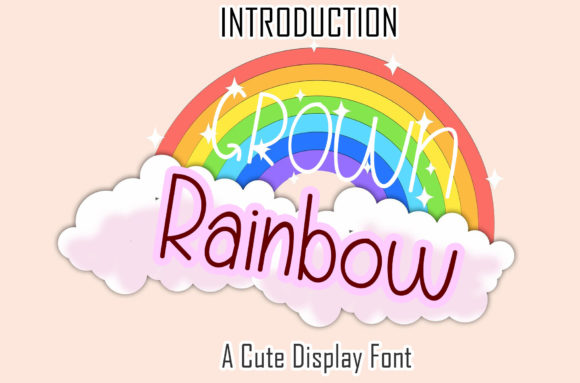
Journey into a world where imagination knows no bounds, where colors dance and joy fills the air. Introducing Grown Rainbow Font, the enchanting display font that will transform your creations into captivating masterpieces. Crafted by the skilled hands of Sansana, this font is a symphony of vibrant hues and playful characters, ready to add a touch of magic to your designs.
Picture this: a T-shirt adorned with the Grown Rainbow Font, its letters bursting with personality, inviting the world to embrace your creativity. The whimsical curves and cheerful strokes will make your designs stand out, capturing hearts and sparking conversations wherever you go.
Dive into the limitless possibilities of the Grown Rainbow Font. Its playful nature lends itself perfectly to cartoon-related designs, bringing your characters to life with a touch of whimsy. Create children's games that spark their imagination, where every letter becomes a playful companion on their adventures.
But the magic of the Grown Rainbow Font doesn't stop there. Its versatility extends to any creation that calls for a splash of joy and charm. Whether it's invitations that come alive with color, posters that demand attention, or website designs that exude warmth, this font will elevate your vision to new heights.
So, let your imagination soar, embrace the power of Grown Rainbow Font, and embark on a creative journey where every design tells a story, every project is a masterpiece, and every user is captivated by the beauty of your creations. Unleash your inner artist and let the Grown Rainbow Font paint your world with joy and creativity.